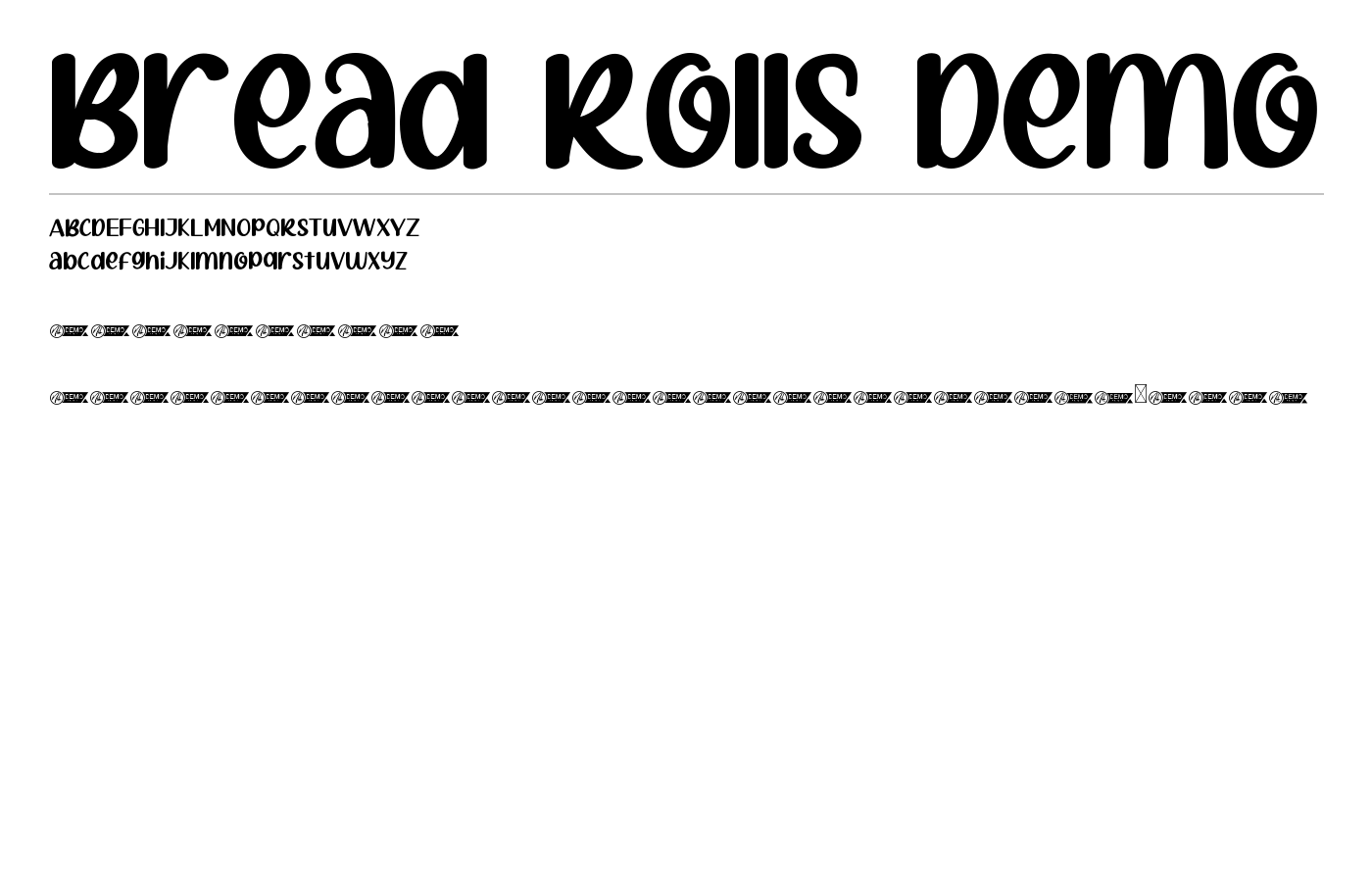
Bread Rolls Demo is a playful and quirky sans serif font with a handwritten feel, featuring uneven strokes and unique letter shapes that bring warmth and charm. Its bold weight and condensed width make it stand out in headlines or logos, perfect for informal, creative, or child-friendly branding. This font works well for fun packaging, posters, and any design seeking a casual, approachable vibe.
Bread Rolls Demo Font
About Bread Rolls Demo Font
| Font family | Bread Rolls Demo Font |